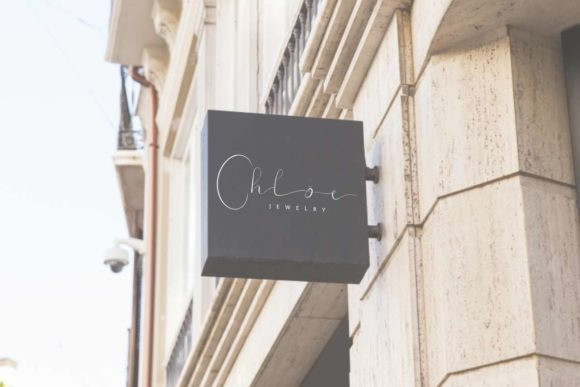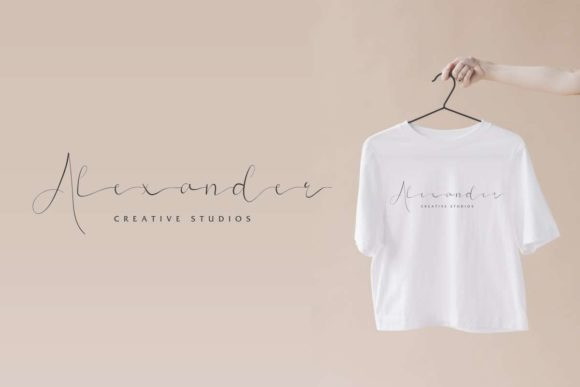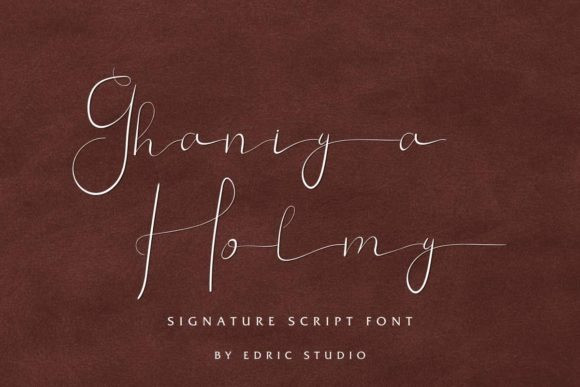
Ghaniya Holmy Script Font
Ghaniya Holmy is inspired by classic typography and brings its own unique style to any design project. Use this gorgeous and unique script font to bring any DIY project to life!